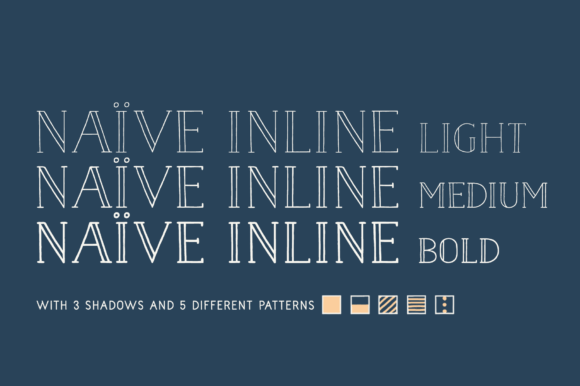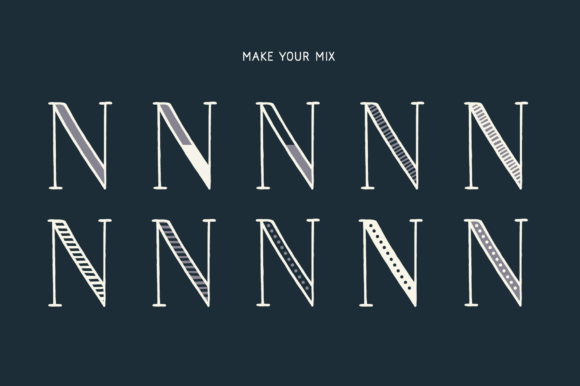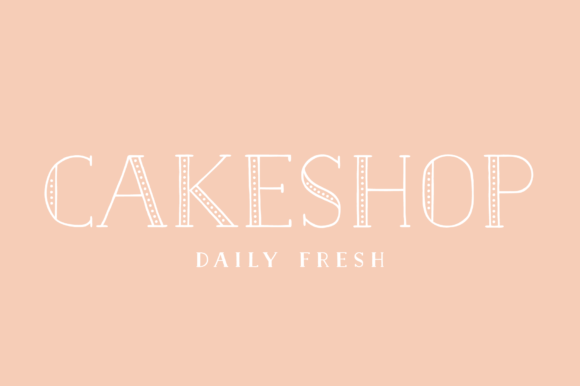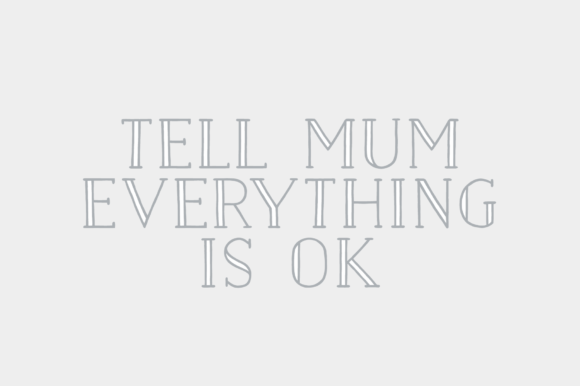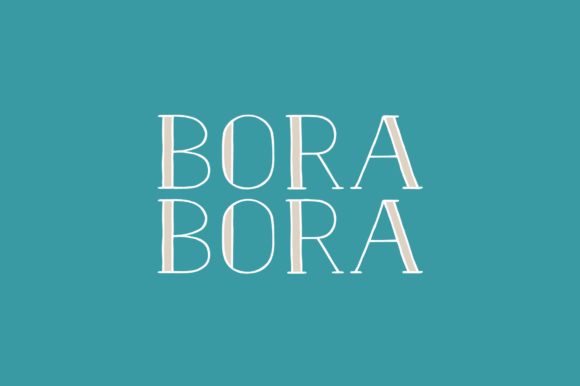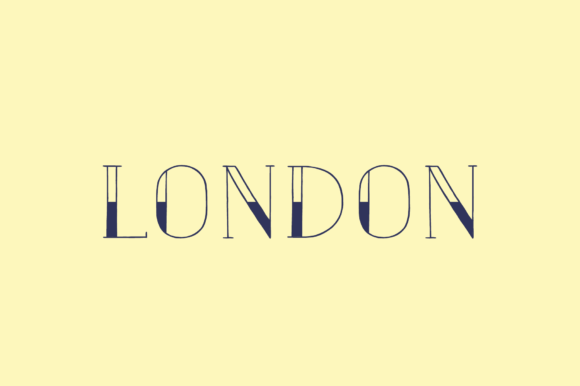
Introduction to Naive Inline Font
Naïve Inline is a layered serif handwritten font designed by Fanny Coulez and Julien Saurin in Paris.
It is designed with three weights to assure a good readability whatever the size They can be enhanced with five different interior patterns and three shadows to improve your designs and bring a charming and unusual feeling.